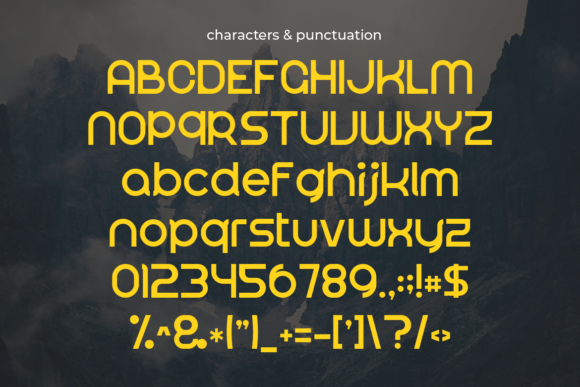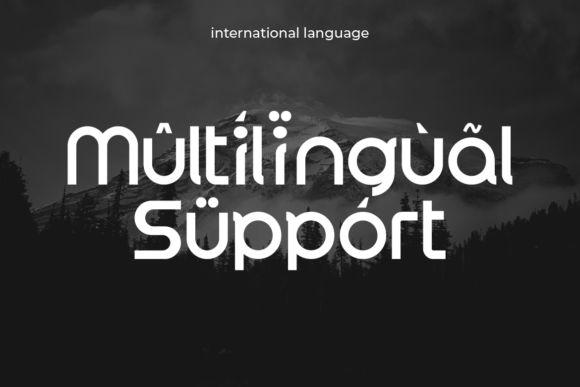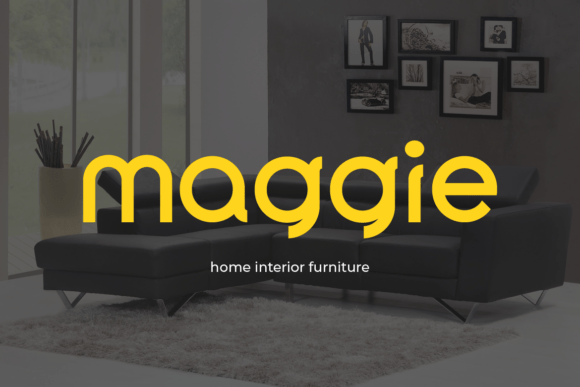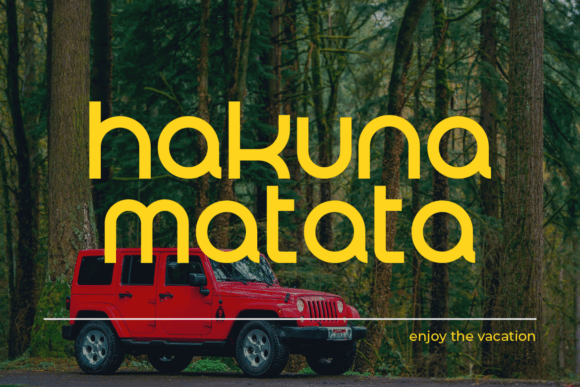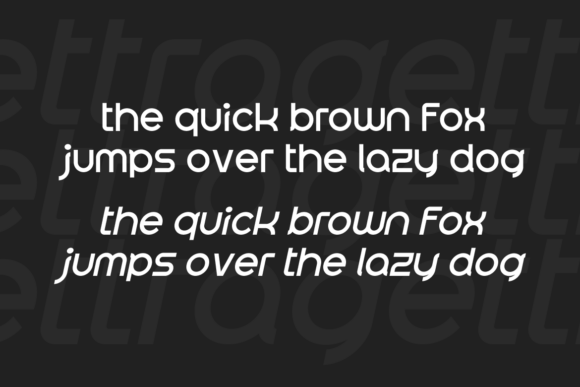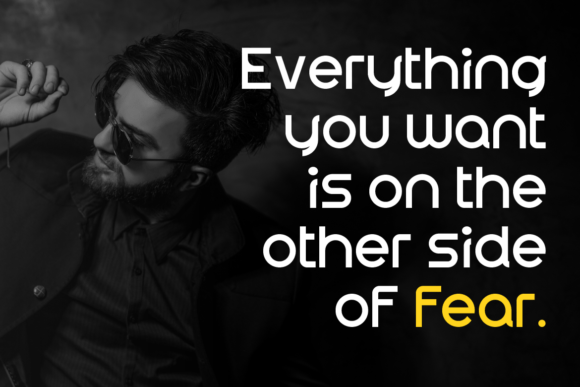
Introducing Gettra Font: Elevate Your Designs with Sleek Sophistication
In the realm of typography, a font can make or break the visual appeal of a design project. For those seeking a modern, clean, and versatile typeface, Gettra Font emerges as an exceptional choice. Gettra is a sleek and contemporary sans serif font, meticulously crafted to marry clarity with style. Its smooth lines, geometric proportions, and minimalistic aesthetic converge to bring a professional yet approachable look to a wide array of design endeavors.
The Essence of Gettra Font
Gettra’s design philosophy revolves around simplicity and legibility, making it an ideal candidate for projects that demand a clear and concise visual message. The font’s sans serif nature lends it a clean and uncluttered appearance, perfect for digital platforms, print materials, and any design project where typography plays a pivotal role.
Key Features of Gettra Font
- Smooth Lines and Geometric Proportions: Gettra’s design boasts smooth, flowing lines and geometric shapes, contributing to its modern and sophisticated look.
- Minimalistic Aesthetic: Embracing the less-is-more approach, Gettra’s minimalistic design ensures that it complements rather than overwhelms the content it accompanies.
- Versatility: Whether it’s for a corporate brand, a digital app, or a craft project, Gettra’s versatile nature makes it suitable for a broad spectrum of applications.
- Professional yet Approachable: Gettra strikes the perfect balance between professionalism and approachability, making it an excellent choice for brands aiming to appear both sleek and friendly.
Applications of Gettra Font
The versatility of Gettra Font makes it a valuable asset for various design projects. Some of its notable applications include:
- Branding and Logotypes: Gettra’s sleek and modern appearance makes it an excellent choice for logos and brand identities that seek to convey innovation and sophistication.
- Digital Interfaces: For websites, apps, and digital products, Gettra’s legibility and clean design enhance user experience and interface aesthetics.
- Print Materials: From business cards to brochures and posters, Gettra adds a touch of elegance and professionalism to print materials.
- Crafting and DIY Projects: For crafters and DIY enthusiasts, Gettra can add a modern twist to handmade cards, journals, and other creative projects.
Why Choose Gettra Font?
In a sea of typefaces, Gettra stands out for several reasons:
- Legibility: Its clear and simple design ensures that messages are conveyed effectively, making it perfect for both digital and print media.
- Modern Appeal: Gettra’s contemporary look keeps designs up-to-date and fresh, appealing to audiences accustomed to modern aesthetics.
- Emotional Connection: The approachable nature of Gettra helps create an emotional connection with the audience, making it suitable for brands that wish to appear friendly and approachable.
Gettra Font is more than just a typeface; it’s a design companion that brings clarity, style, and a modern touch to any project. Its sleek lines, geometric proportions, and minimalistic design philosophy make it a versatile and valuable asset for designers, crafters, and brands worldwide. Whether you’re crafting a brand identity, designing a digital product, or working on a DIY project, Gettra Font is poised to elevate your designs with its sophisticated yet approachable aesthetic.
Embrace the sleek sophistication of Gettra Font and discover the difference it can make in your design endeavors. With its broad range of applications and its ability to convey both professionalism and approachability, Gettra is not just a font—but a tool that can transform your creative visions into compelling visual realities.